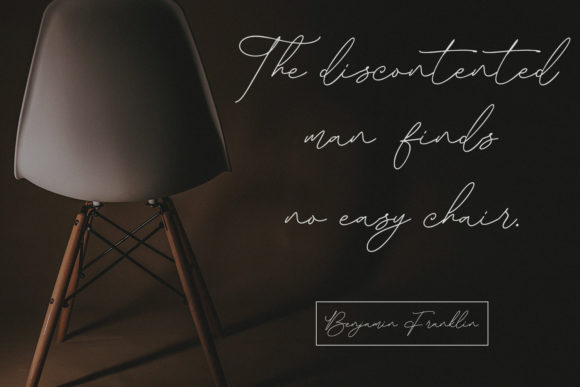
Gojelles Font
db-ku.com - Script & Handwritten -- Gojelles is a slim and signature script font. No matter the topic, this font will be an incredible asset to your fonts’ library, as it has the potential to elevate any creation.